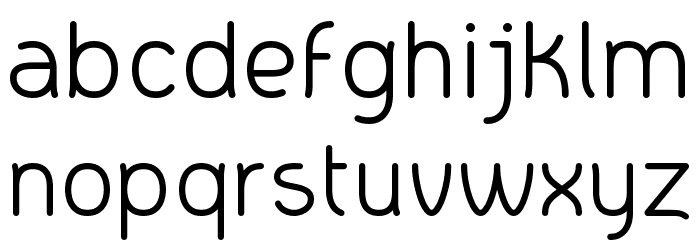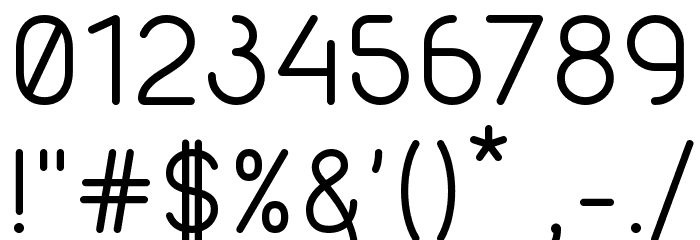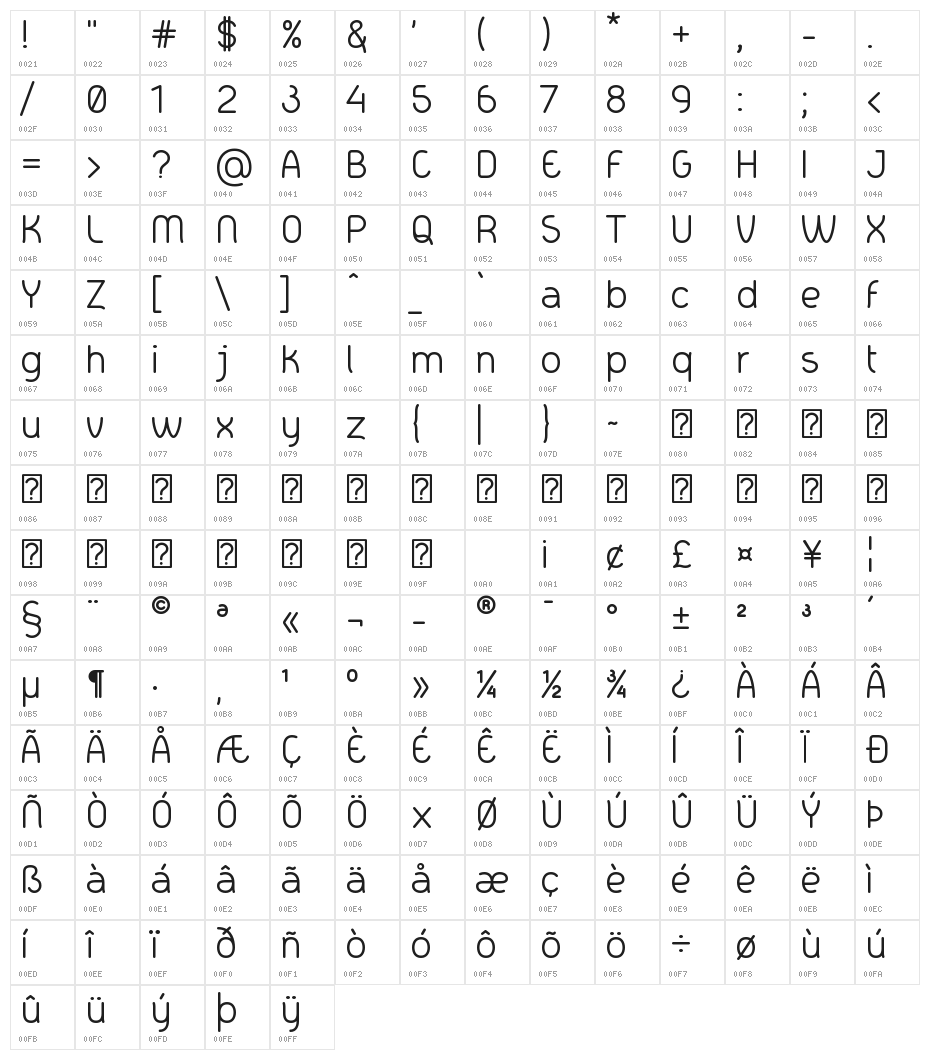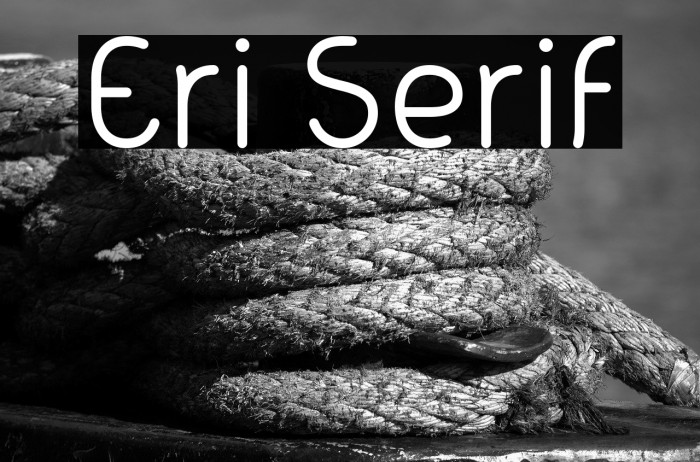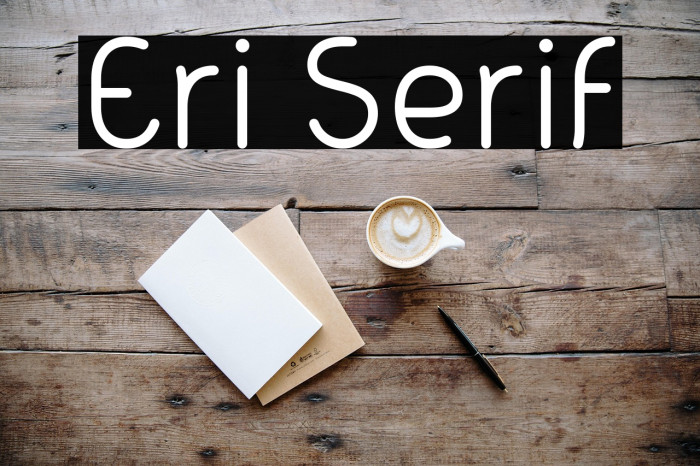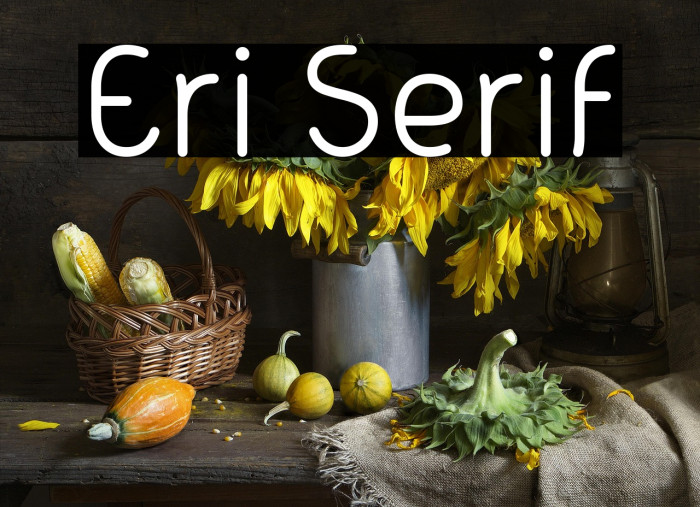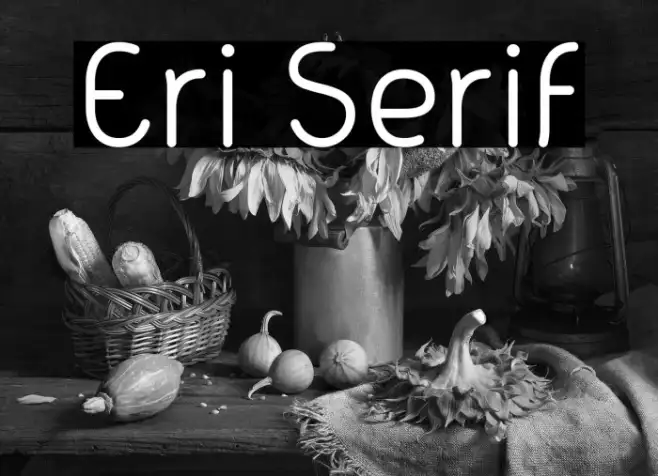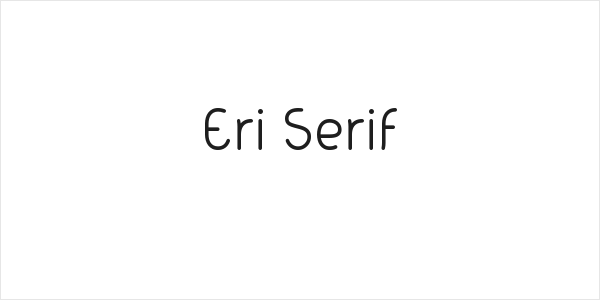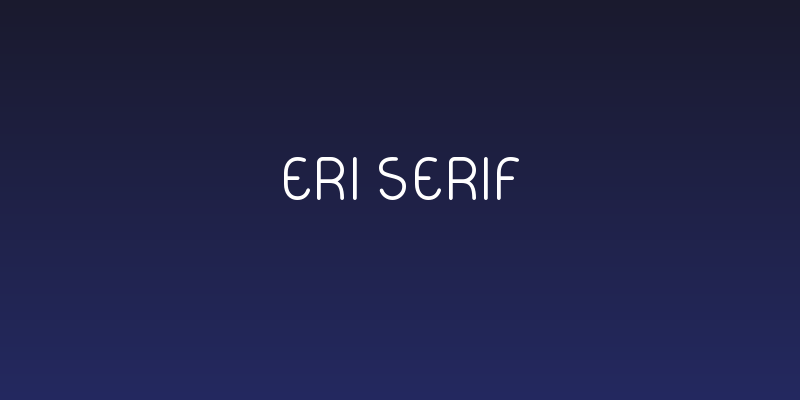
Eri Serif Font
This font features a clean and modern sans-serif style with rounded edges, giving it a friendly and approachable appearance. The characters are evenly spaced with a consistent stroke width, contributing to its legibility. The uppercase letters maintain a uniform height, while the lowercase letters are slightly shorter, providing a balanced look. The numerals are clear and distinct, making them easy to read. Special characters are well-designed, fitting seamlessly with the overall aesthetic. This font's simplicity and clarity make it versatile for various design applications.
A modern, rounded sans-serif font with clean lines and balanced proportions.
- Font: Eri Serif
- Proposed Projects: Ideal for digital interfaces, branding, advertising, and educational materials.